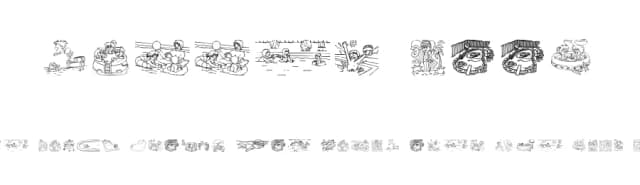
About Pupies Font
Tender puppies.
The most tender Puppies have arrived.
Pupies Font is a versatile dingbats font that works for both headings and body text. Pair it with a contrasting sans-serif or serif font to add visual interest and a clear distinction between titles and body copy.
Pupies Font
by Ding Bang